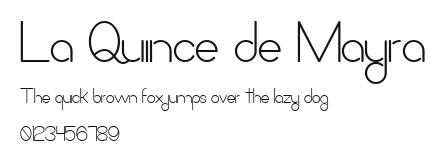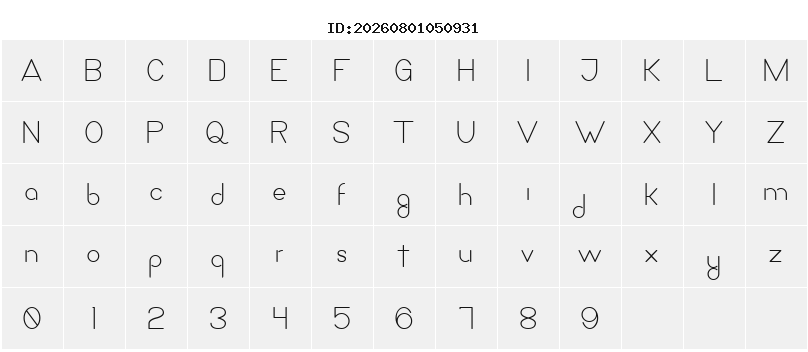
About La Quince de Mayra.ttf
La Quince de Mayra.ttf is a modern, elegant sans-serif font designed for ultimate readability and visual harmony. Perfect for branding, headlines, web design, and print materials.